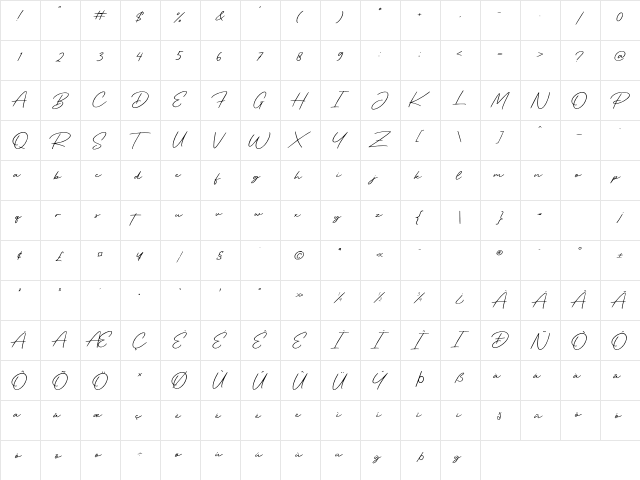
Retro Signature Regular
| Designer | Sigit Dwipa Raharjo |
Design Context for Retro Signature Typeface
Retro Signature has the warm character of retro typography — evoking diners, record sleeves, and the golden age of print advertising.
Font Pairing: Combine Retro Signature with a simple slab or neutral sans — period-accurate companions reinforce the vintage feel without competing for attention.
Pro Tip: Use Retro Signature for headlines and pull quotes rather than body copy — its personality is best appreciated in short, focused bursts.